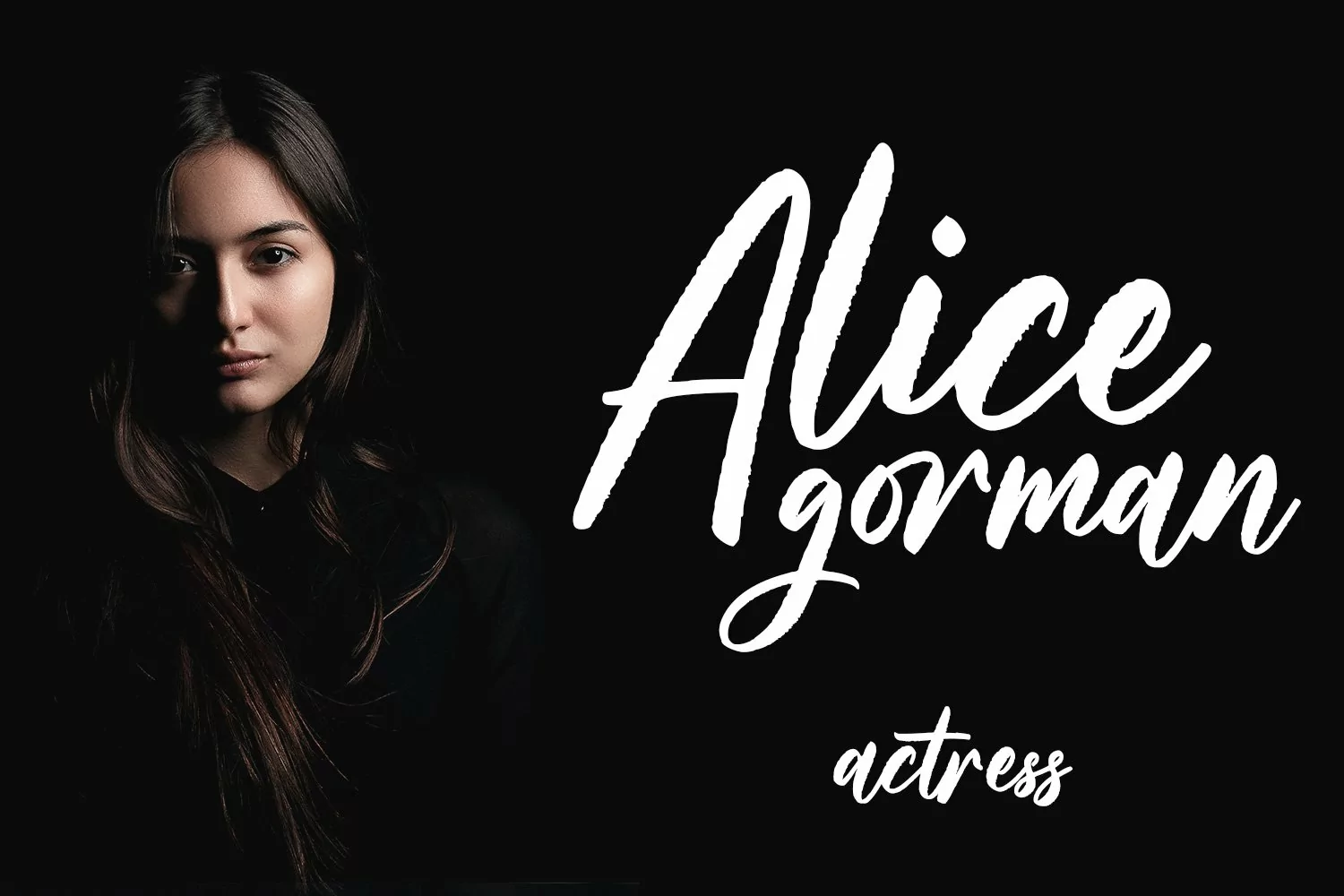
Rusty Mates is a fancy handwritten script font. With rough medium stroke, fun character with a bit of ligatures and alternates. To give you an extra creative work. Rusty Mates font support multilingual more than 100+ language. This font is good for logo design, Social media, Movie Titles, Books Titles, a short text even a long text letter and good for your secondary text font with sans or serif. Make a stunning work with Rusty Mates font.